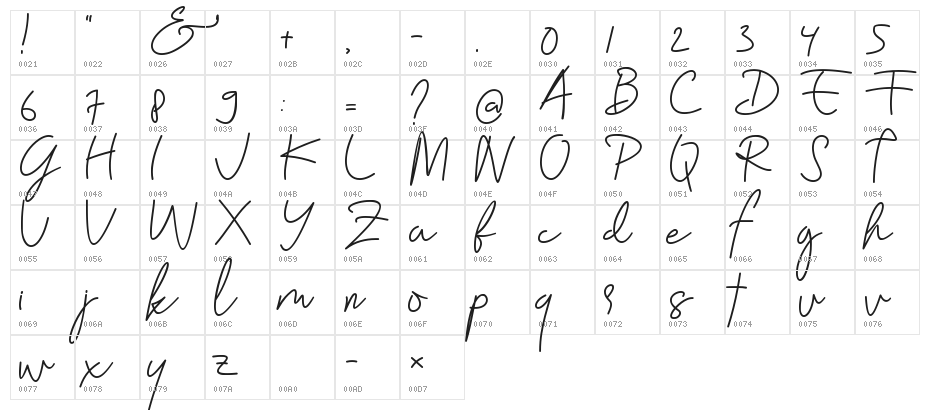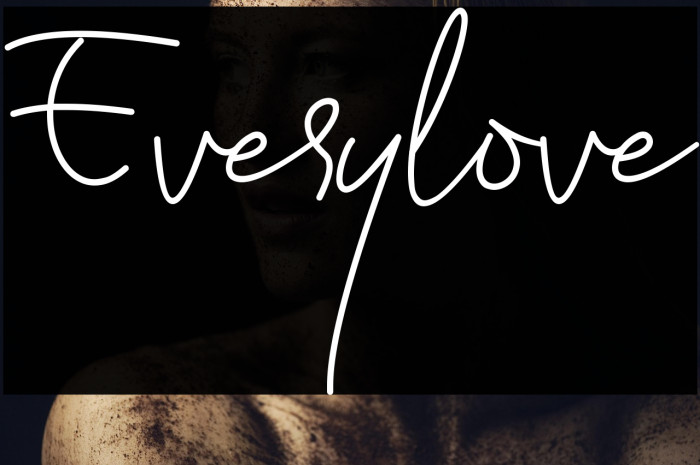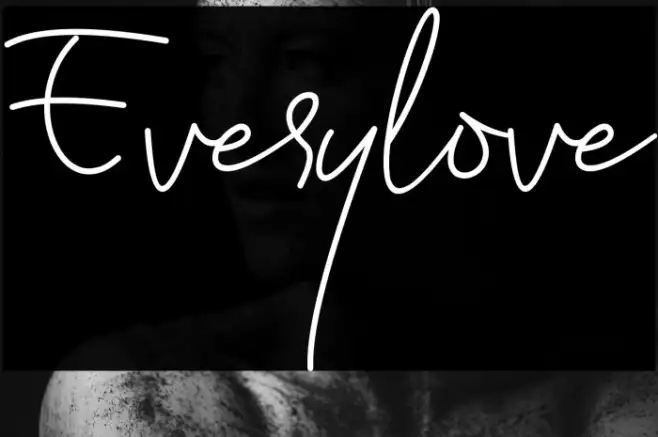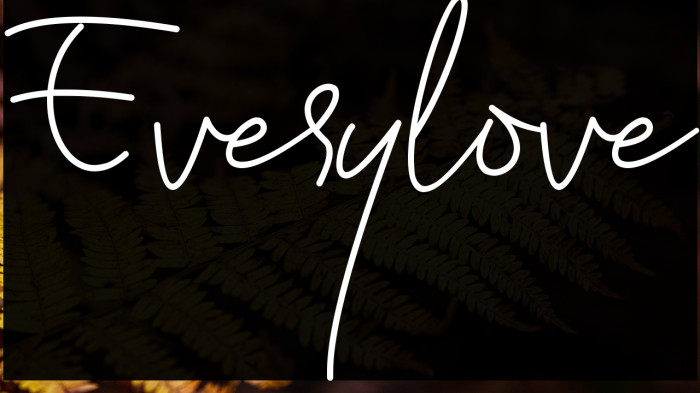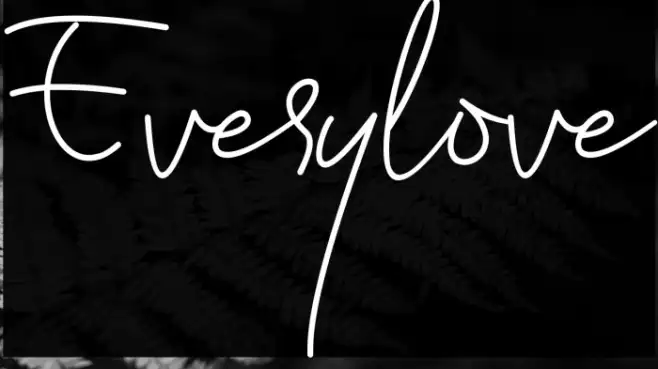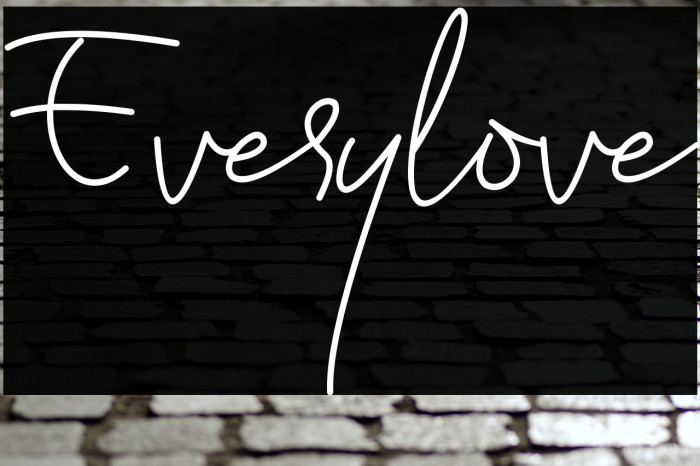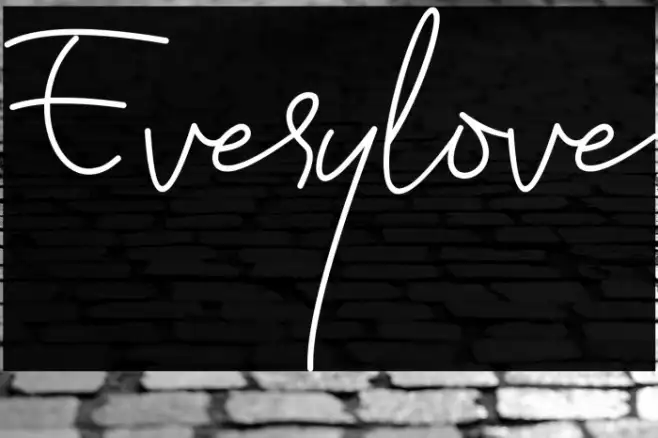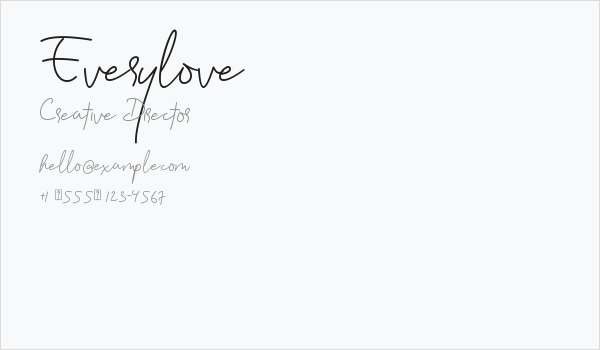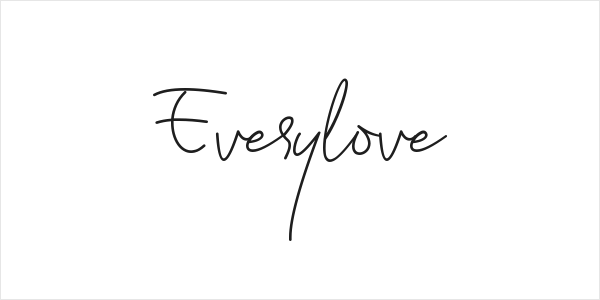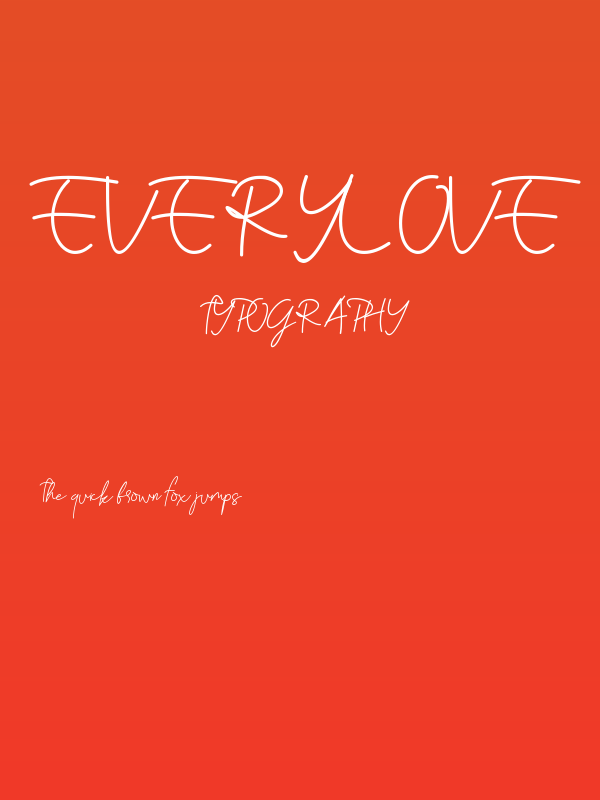
Everylove Font
Everylove Description
This font features a lively and flowing handwritten style, characterized by its smooth, cursive strokes and playful loops. The uppercase letters are slightly more structured, maintaining a consistent height, while the lowercase letters exhibit a more freeform, dynamic appearance. The numerals are clear and legible, with a slight slant that complements the overall cursive theme. Special characters are elegantly integrated, maintaining the font's cohesive style. The font's organic and personal touch makes it suitable for projects that require a humanistic and approachable feel.